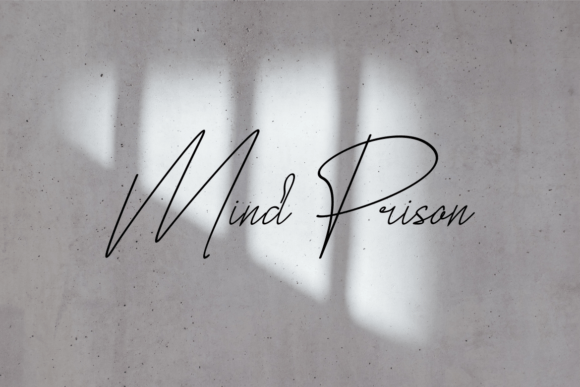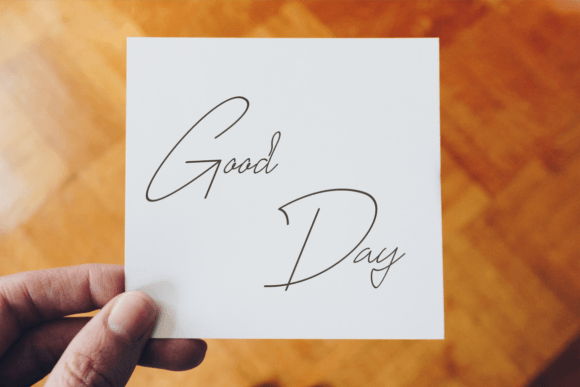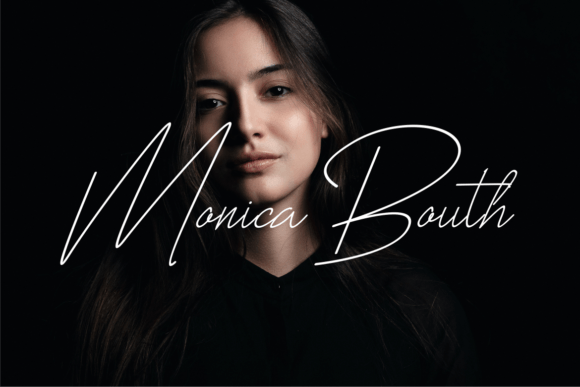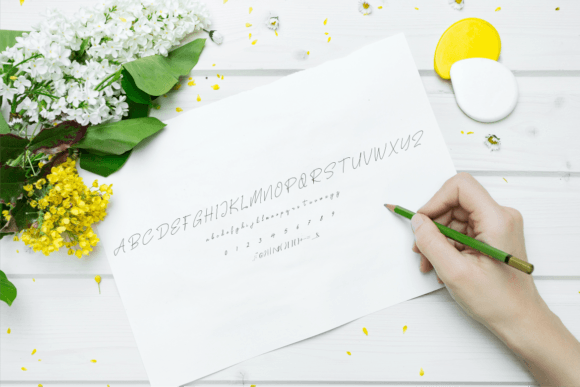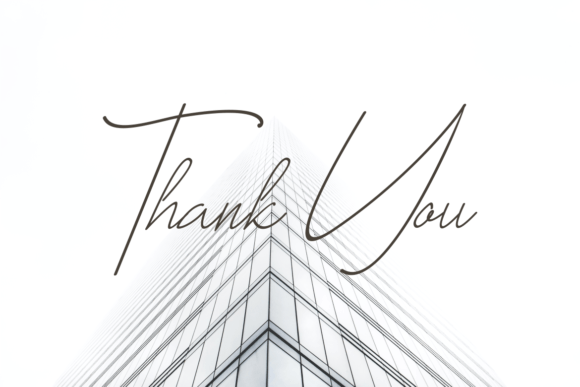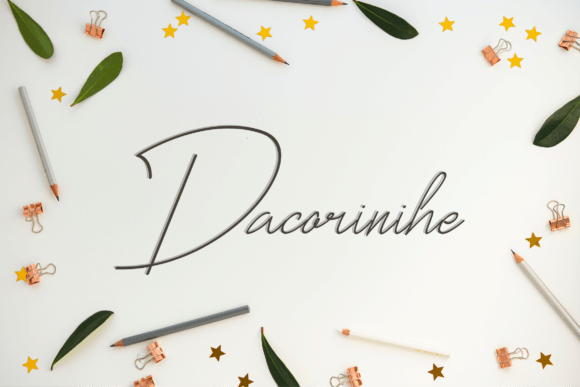
Dacorinihe Font: Elevate Your Designs with Elegance and Sophistication
In the world of typography, a well-crafted font can make all the difference in transforming a design from ordinary to extraordinary. For designers and crafters seeking to add a touch of luxury and refinement to their projects, the Dacorinihe font is an exceptional choice. This exquisite handwritten font is masterfully designed to capture the essence of classic calligraphy while exuding a modern and fresh appeal.
The Essence of Dacorinihe Font
Dacorinihe is more than just a font; it’s a statement piece that can elevate your designs to new heights. Its classy calligraphic influences are carefully balanced with contemporary elements, making it a versatile and sophisticated addition to any project. Whether you’re working on a branding campaign, packaging design, or personal craft project, Dacorinihe is sure to leave a lasting impression.
Key Features of Dacorinihe Font
- Exquisite Handwritten Design: Dacorinihe boasts a beautiful, handcrafted design that lends an air of elegance and sophistication to any text.
- Classy Calligraphic Influences: The font’s calligraphic roots are evident in its fluid strokes and refined letterforms, perfect for projects requiring a touch of luxury.
- Contemporary and Fresh: Despite its classic influences, Dacorinihe feels modern and current, making it suitable for a wide range of design applications.
- Versatility: From branding and advertising to packaging and personal crafts, Dacorinihe’s versatility knows no bounds.
Why Choose Dacorinihe Font?
For designers and crafters looking to stand out in a crowded market, Dacorinihe offers a unique combination of style, sophistication, and approachability. Here are a few reasons why Dacorinihe should be your go-to font:
- Emotional Connection: The handwritten nature of Dacorinihe creates an instant emotional connection with the reader, making your message more relatable and engaging.
- Brand Differentiation: In a world where brands are constantly competing for attention, Dacorinihe can help you establish a distinctive visual identity that sets you apart.
- Easy to Read: Despite its elegant design, Dacorinihe remains highly legible, ensuring that your message is communicated clearly and effectively.
Using Dacorinihe Font in Your Projects
Incorporating Dacorinihe into your designs is straightforward and offers endless creative possibilities. Here are some ideas to get you started:
- Branding and Logos: Use Dacorinihe to create a memorable logo or to develop a cohesive brand language that exudes elegance and sophistication.
- Stationery and Packaging: Elevate your stationery, business cards, and packaging designs with a touch of luxury and refinement.
- Digital Media: From social media graphics to website headers, Dacorinihe can add a level of sophistication to your digital content.
- Crafting and DIY Projects: Whether you’re creating handmade cards, party invitations, or personalized gifts, Dacorinihe can add a special touch to your craft projects.
Dacorinihe font is a true gem in the world of typography, offering designers and crafters a unique opportunity to add elegance, sophistication, and a touch of class to their projects. With its exquisite handwritten design, classy calligraphic influences, and contemporary appeal, Dacorinihe is poised to become your new favorite font. So why wait? Fall in love with Dacorinihe and bring your projects to the highest levels of creativity and refinement.